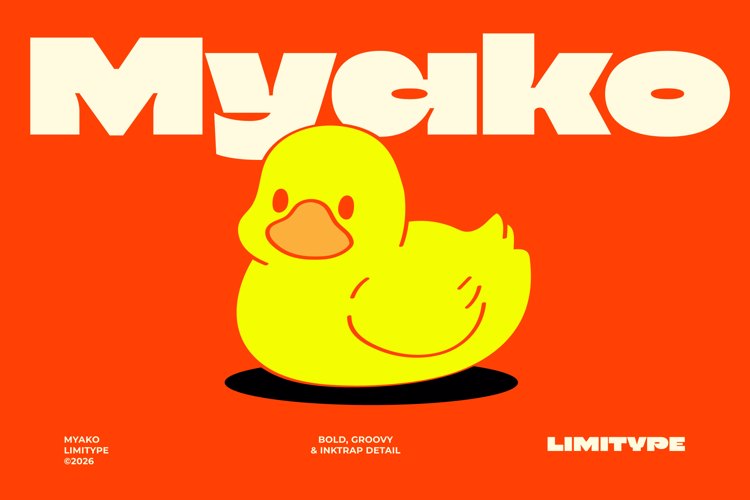
Myako - Bold Inktrap Font
Myako is a bold display font featuring chunky groovy letterforms with distinctive inktrap details, adding a modern touch to its cheerful personality. Its oversized curves, soft geometric shapes, and strong visual presence create eye catching typography without compromising readability. Perfect for logos, branding, packaging, food and beverage designs, posters, headlines, social media graphics, and editorial layouts, Myako brings a cheerful retro inspired style that feels warm, confident, and full of expressive character to every design.